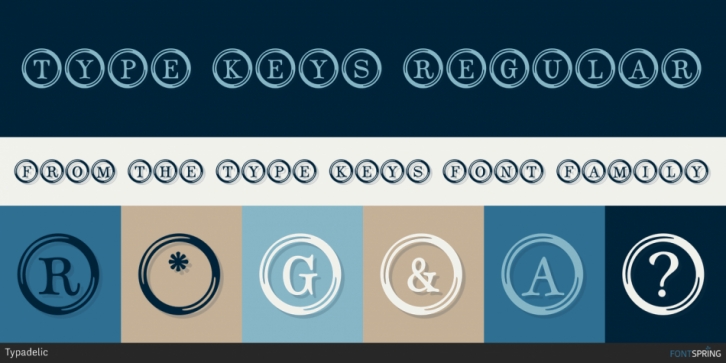
Type Keys is a monograms and novelty font family. This typeface has two styles and was published by Typadelic.
Type Keys Plain and Type Keys Filled represent the keys from an antique typewriter. Because they are free, they have very limited character sets but are quite suitable to use in scrapbooking or any project where you want this kind of style.